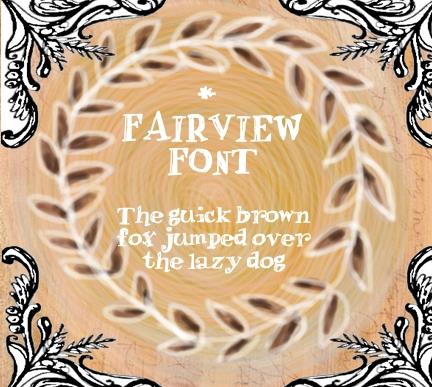
Free Fair view Font
Take a look at this miraculous free fair view font. This is a downloadable typeface file brought to you by Font Space. This is absolutely fancy font so you can easily make world-class designs.